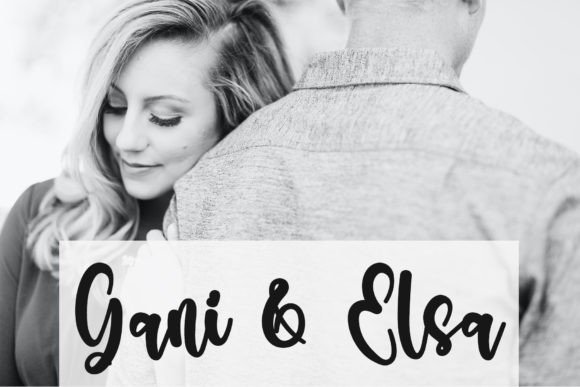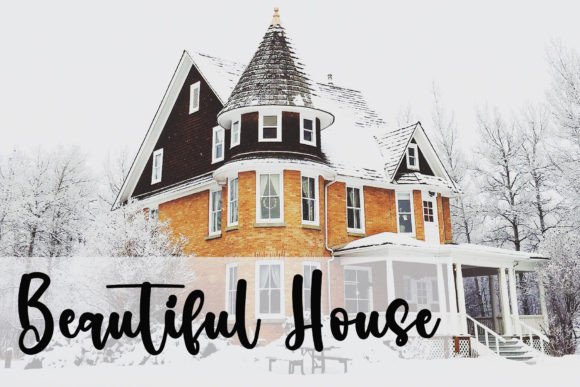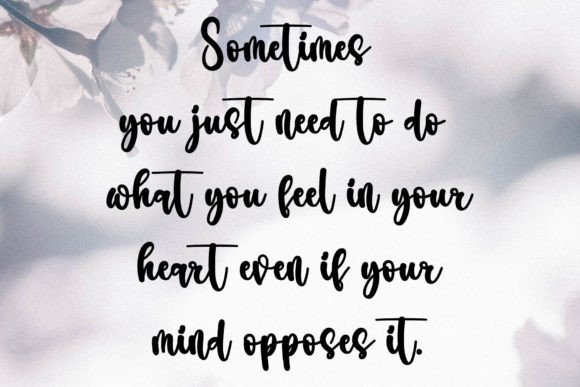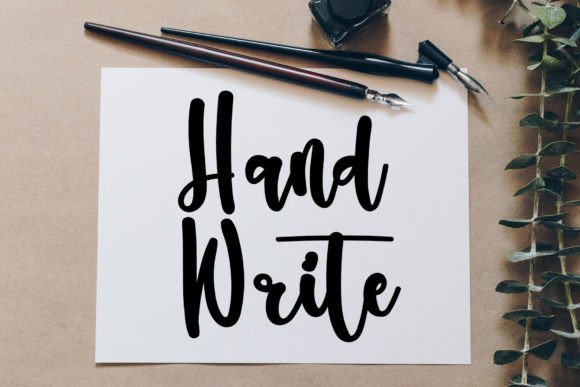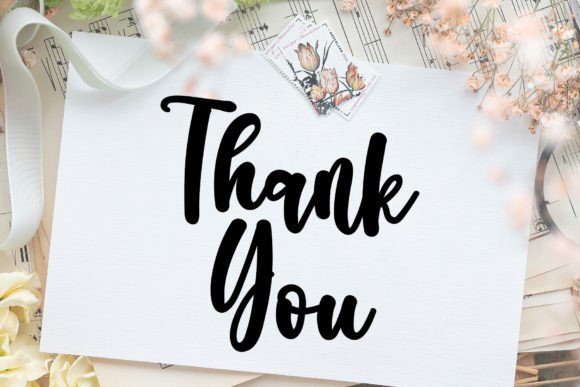
Introduction to Retrain Font
As designers, we’ve all been there – staring at a blank canvas, trying to come up with the perfect font to bring our creative project to life. And then, like a breath of fresh air, we stumble upon a font that makes our hearts skip a beat. For us, that font is the Retrain Font, a charming and whimsical handwritten script that adds a touch of magic to any design.
Perfect for writing wedding invitations, birthday cards, or any other celebration day design that requires a soft, characterful touch, the Retrain Font is a game-changer for designers. Its high quality and unique character make it a valuable addition to any design resource, and with its free download option, it’s a treasure trove for creatives on a budget. Plus, with its transparent background, it’s easy to customize and integrate into any project.
So, what makes the Retrain Font so special? For starters, it’s PUA encoded, making it easy to access all the glyphs and ligatures, giving designers the freedom to get creative and push the boundaries of their designs. Whether you’re a seasoned pro or just starting out, the Retrain Font is an absolute must-have for any designer looking to add a touch of personality to their work.
- Unique characteristics and styles that set it apart from other fonts, providing a distinctive touch to any design or creative project.
Honest Review: Retrain Font
As a designer, I’m always on the lookout for high-quality design resources to elevate my creative projects. Recently, I stumbled upon the Retrain Font, and I’m excited to share my honest review with you.
What works well: ✨ The Retrain Font offers a unique and modern aesthetic that’s perfect for a wide range of creative projects. The font is highly customizable, with a transparent background that makes it easy to layer and combine with other design elements. I also appreciate that it’s a free download, which is always a bonus for designers on a budget.
- High-quality design**: The Retrain Font is a well-crafted font that’s sure to impress.
- Transparent background**: Makes it easy to combine with other design elements and create a seamless look.
Limitations: ⚠️ While the Retrain Font is a great resource, it’s not without its limitations. The font is only available in a limited number of weights and styles, which may not be suitable for all design projects.
Overall, I’m impressed with the Retrain Font and would recommend it to designers who are looking for a high-quality, free design resource. While it may have some limitations, it’s a great addition to any design arsenal.
Use Retrain Font on a high-quality design project to give it a unique and creative touch. You can also use it on a transparent background to make it stand out. Experiment with different font sizes and styles to get the most out of this versatile font.
Retrain Font is perfect for creative projects such as logos, business cards, and social media graphics. You can also use it in presentations, documents, and web designs to add a touch of creativity and personality.